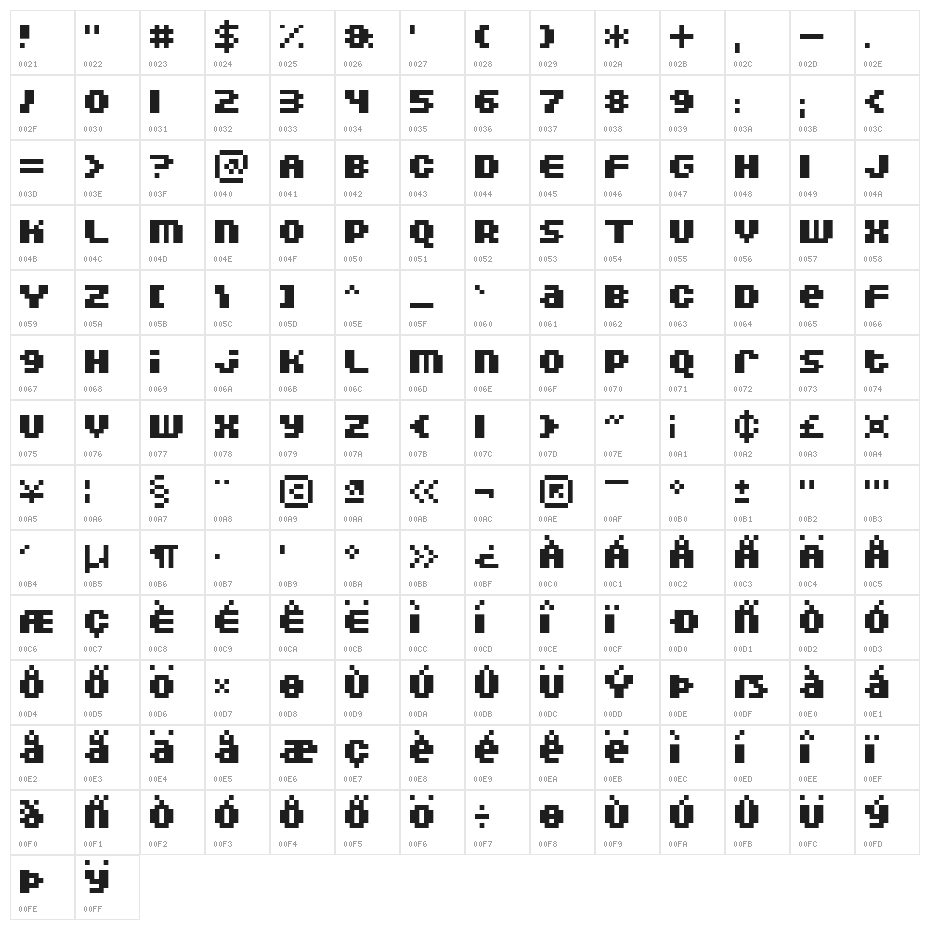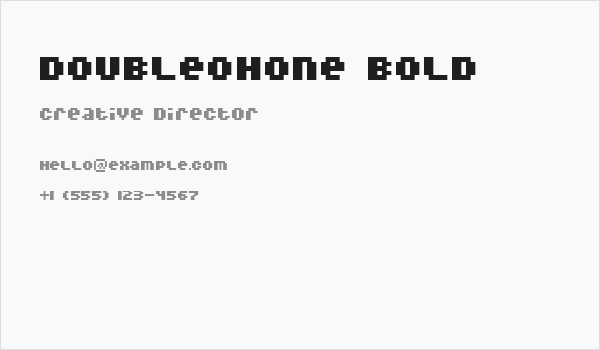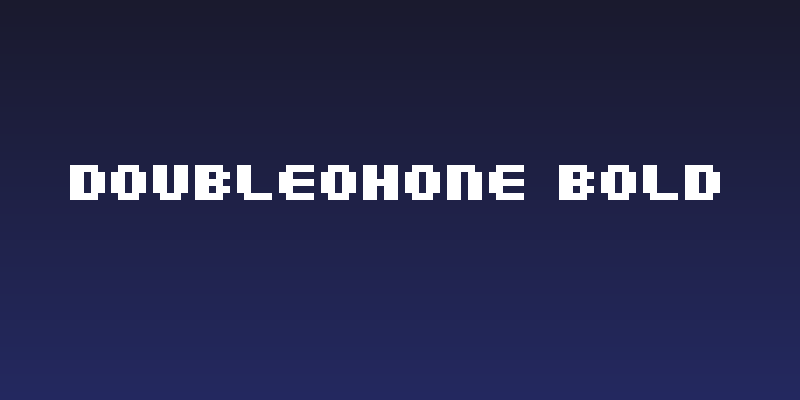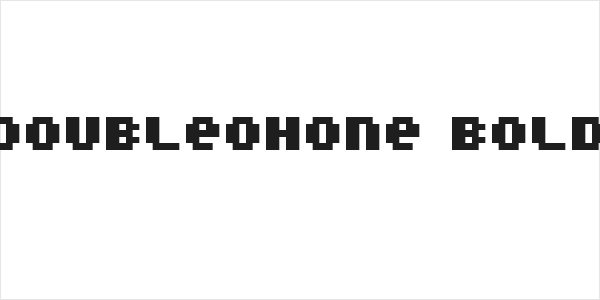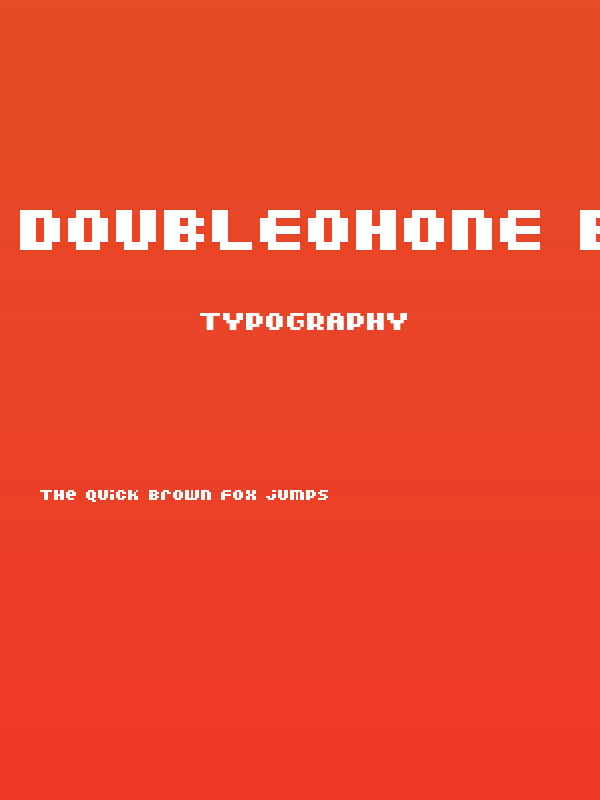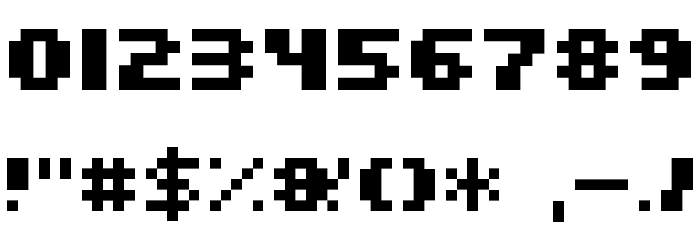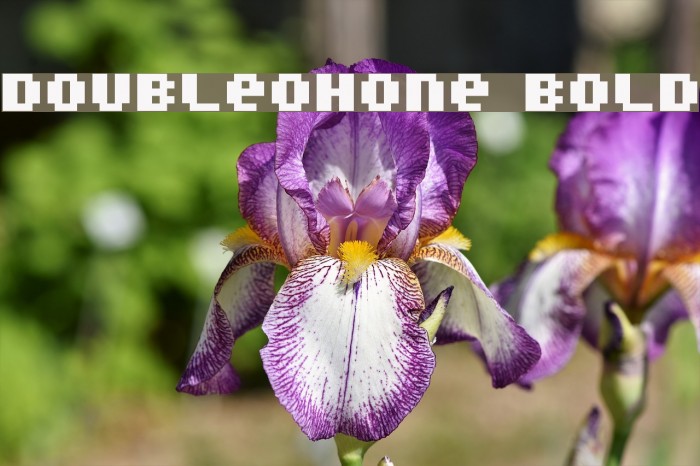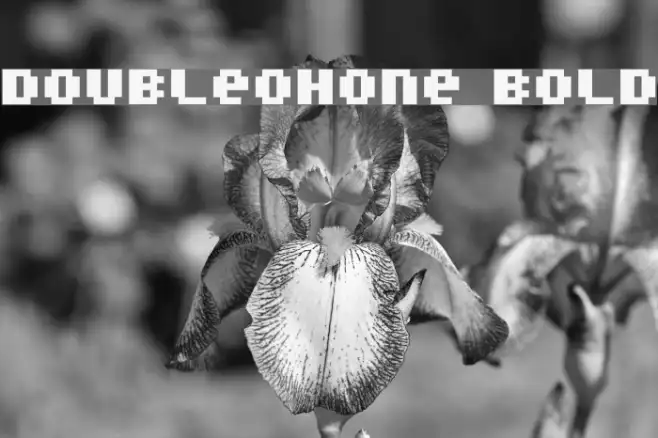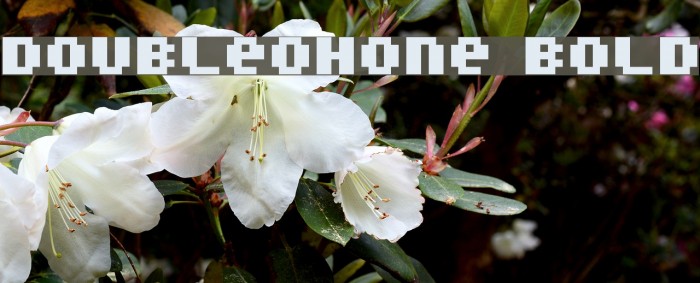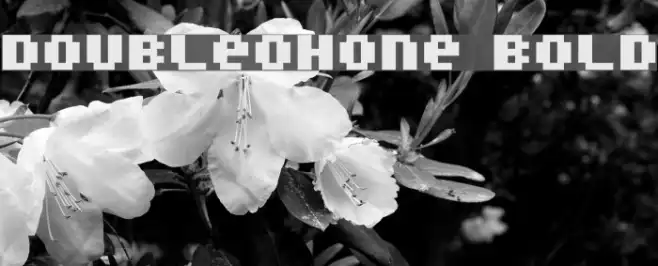
DoubleOhOne Bold Font
DoubleOhOne Bold Description
This font features a bold, pixelated design reminiscent of early digital and arcade aesthetics. Each character is constructed with a blocky, grid-like structure, giving it a distinctly retro, 8-bit appearance. The uppercase and lowercase letters maintain a consistent height, contributing to a uniform look. The numbers and special characters follow the same pixelated style, ensuring visual coherence across all glyphs. This font's strong geometric shapes and high contrast make it highly legible, even at smaller sizes. Its nostalgic feel is perfect for projects aiming to evoke a sense of vintage digital culture.
| Use Case | Headlines, Logos, Digital Art |
| Proposed Projects | Ideal for video game design, retro-themed posters, digital art projects, and any creative work seeking a nostalgic, arcade-style look. |